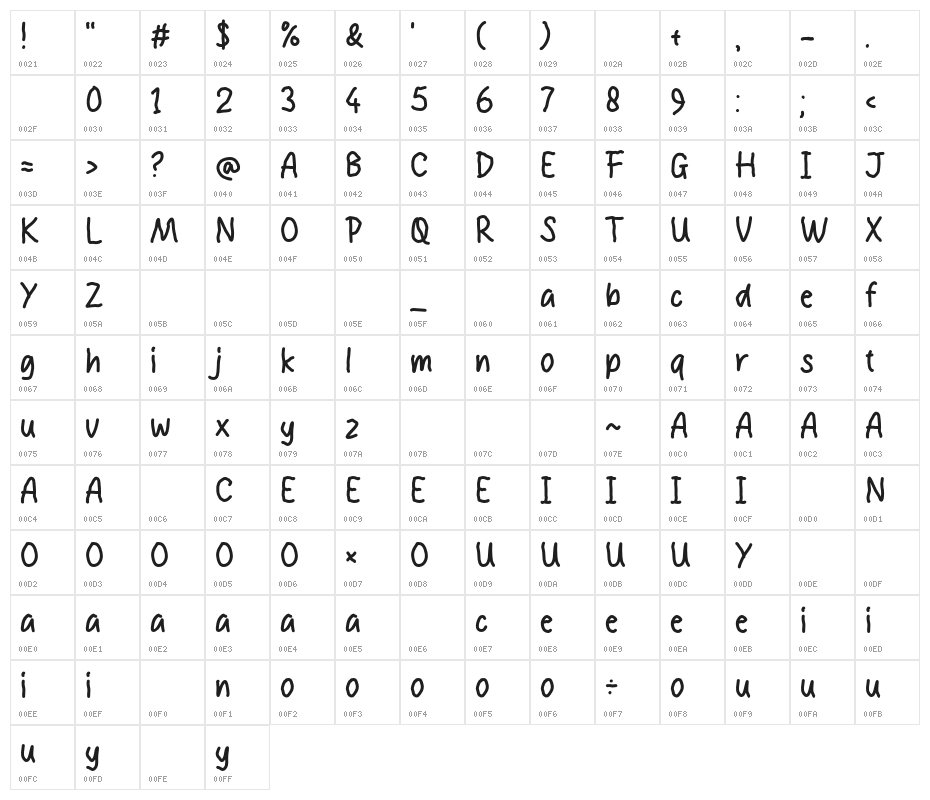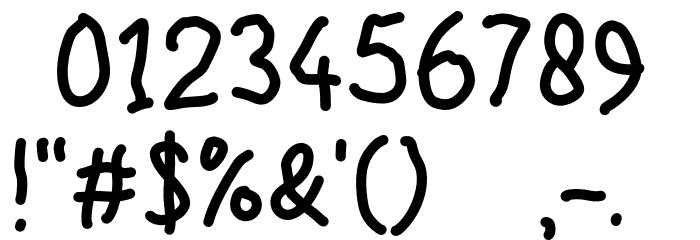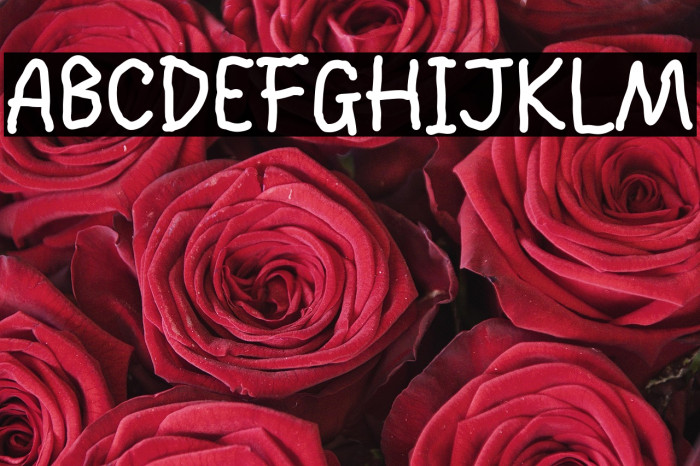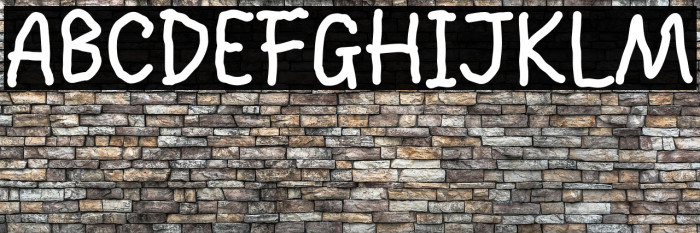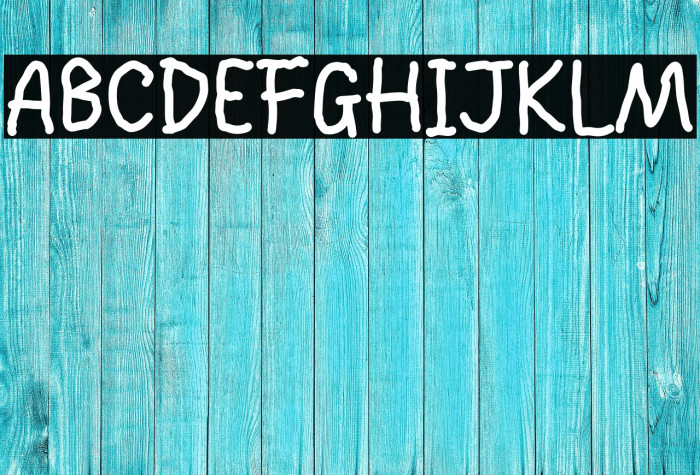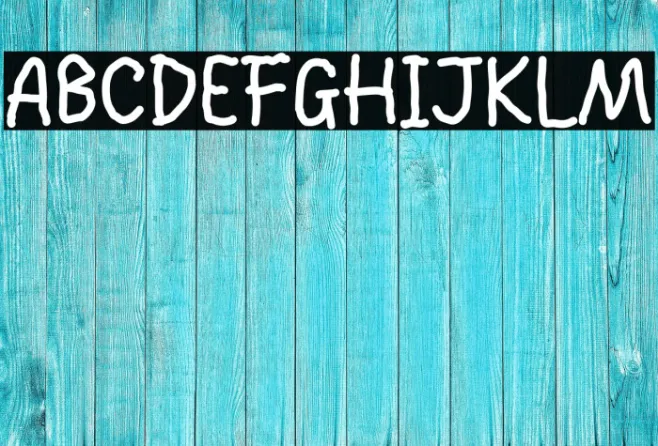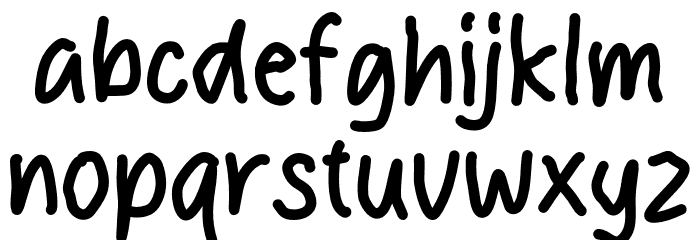
Screem House Font
Screem House Description
This font exhibits a playful and casual handwritten style, characterized by its irregular strokes and organic flow. The letters are slightly uneven, giving it a natural and informal appearance. The uppercase and lowercase letters maintain a consistent style, with rounded edges and a friendly demeanor. Numbers and special characters follow the same playful aesthetic, making the font versatile for various creative projects. Its informal nature makes it suitable for designs that aim to convey warmth and approachability.
| Overall Style | Casual, Playful |
| Use Case | Logos, Headlines, Informal Text |
| Proposed Projects | Ideal for greeting cards, children's books, casual branding, and social media graphics. |